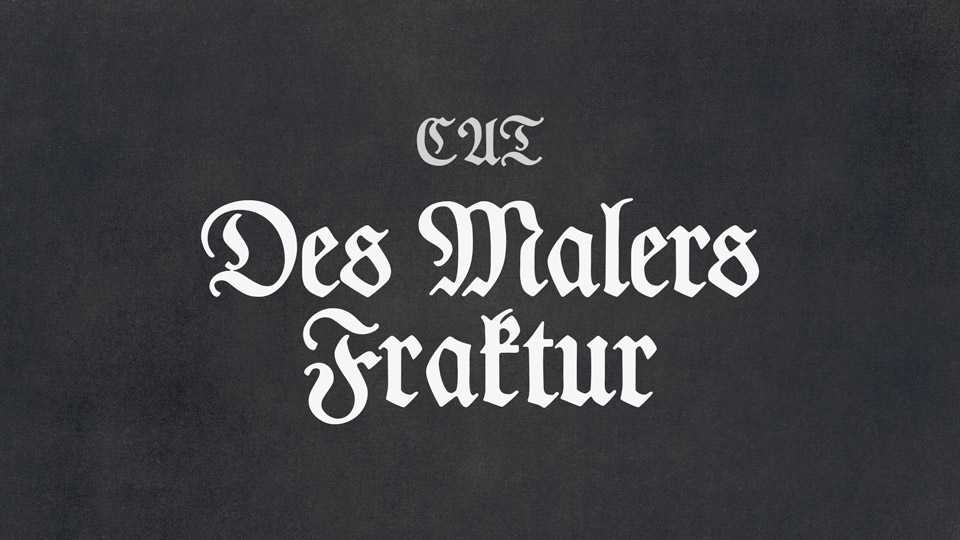
Download Des Malers Fraktur font, a blackletter typeface that comes from a board in the specialist book publisher Dr. Pfannenberg & Co published book “Die Schriften des Malers” by Walter Schenk.